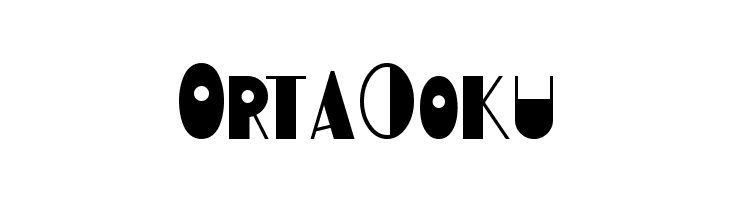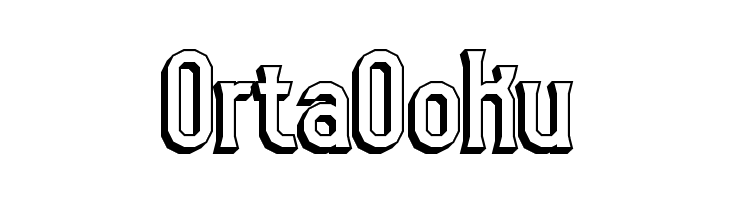
• Guinness Extra Stout NF
A bold, vintage-inspired serif font with thick strokes and a strong presence.
• GuinnessExtraStoutNF
A bold, heavy serif font with high contrast and a classic, authoritative style.
• Gulfstream NF
A bold, geometric font with unique cutouts and high contrast.
• GulfstreamNF
A bold, geometric font with Art Deco influences and unique cutouts.
• Gyneric 3D BRK
• Gyneric BRK
• haAJJA
• Halcyon Days NF
A bold, geometric font with an art deco influence.
• HalcyonDaysNF
A bold, geometric font with Art Deco influences, ideal for decorative use.
• halo-sonic